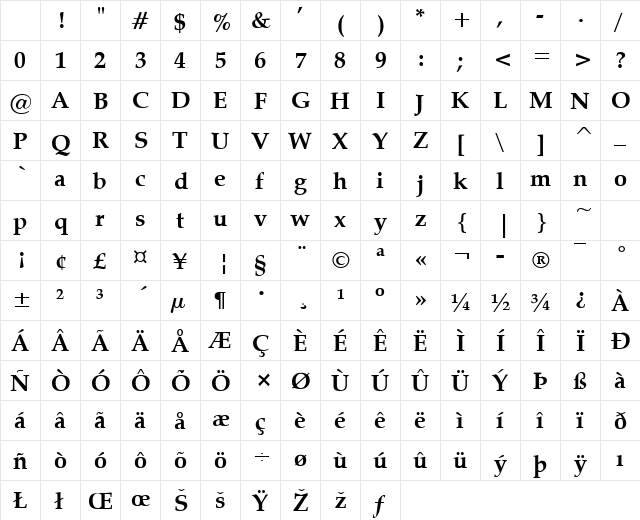
Complete Padua Bold glyph index. Displaying only characters natively supported by Padua Bold font.
Padua is a composed and adaptable typeface that performs quietly and consistently across a wide range of design contexts. Its bold stroke weight gives it real presence on the page.